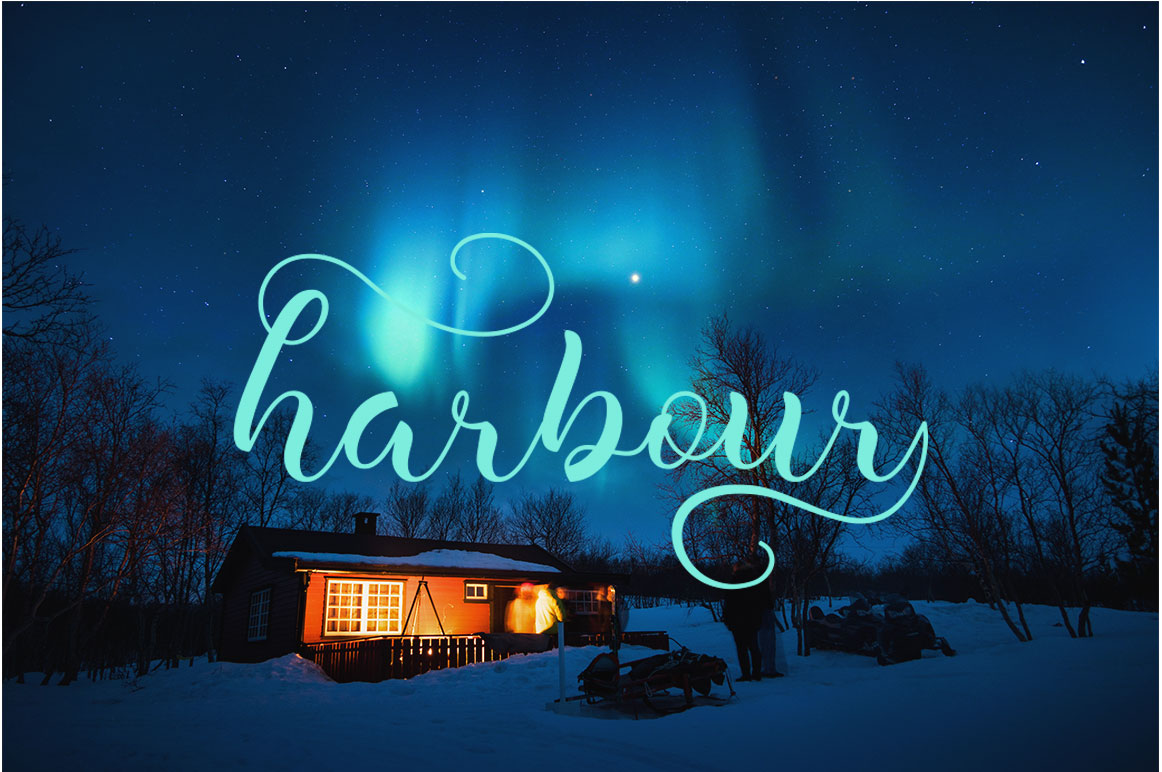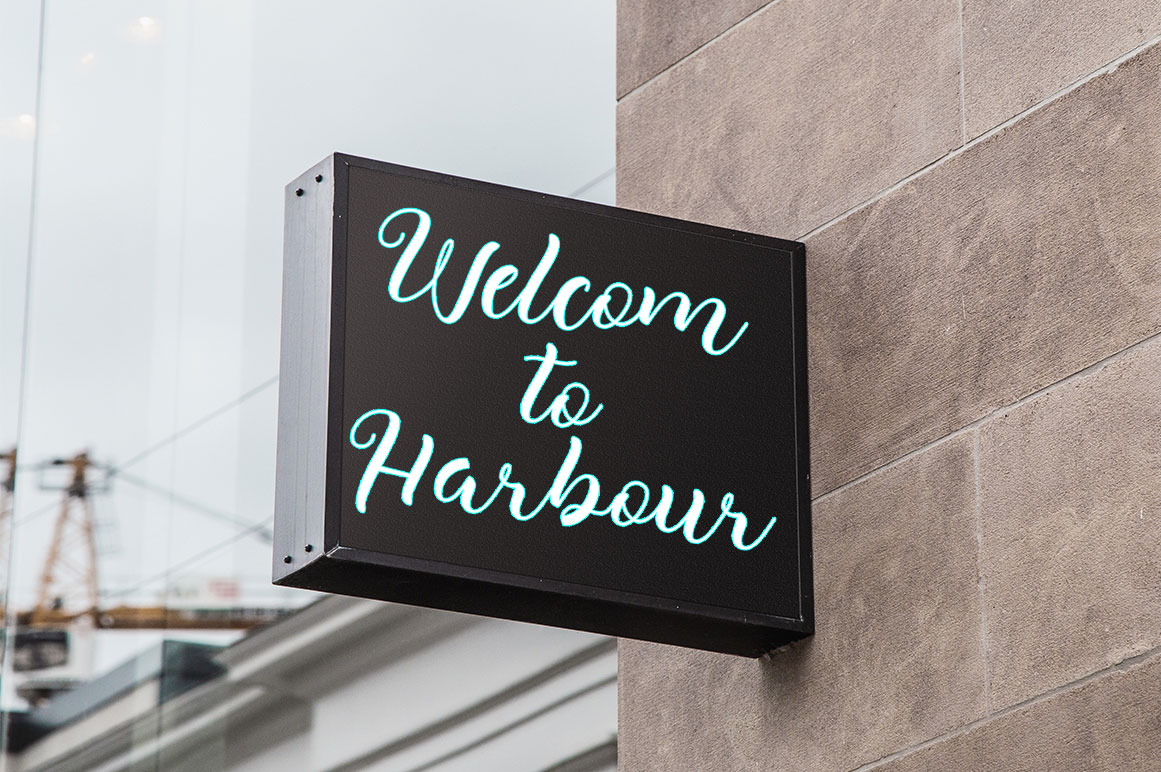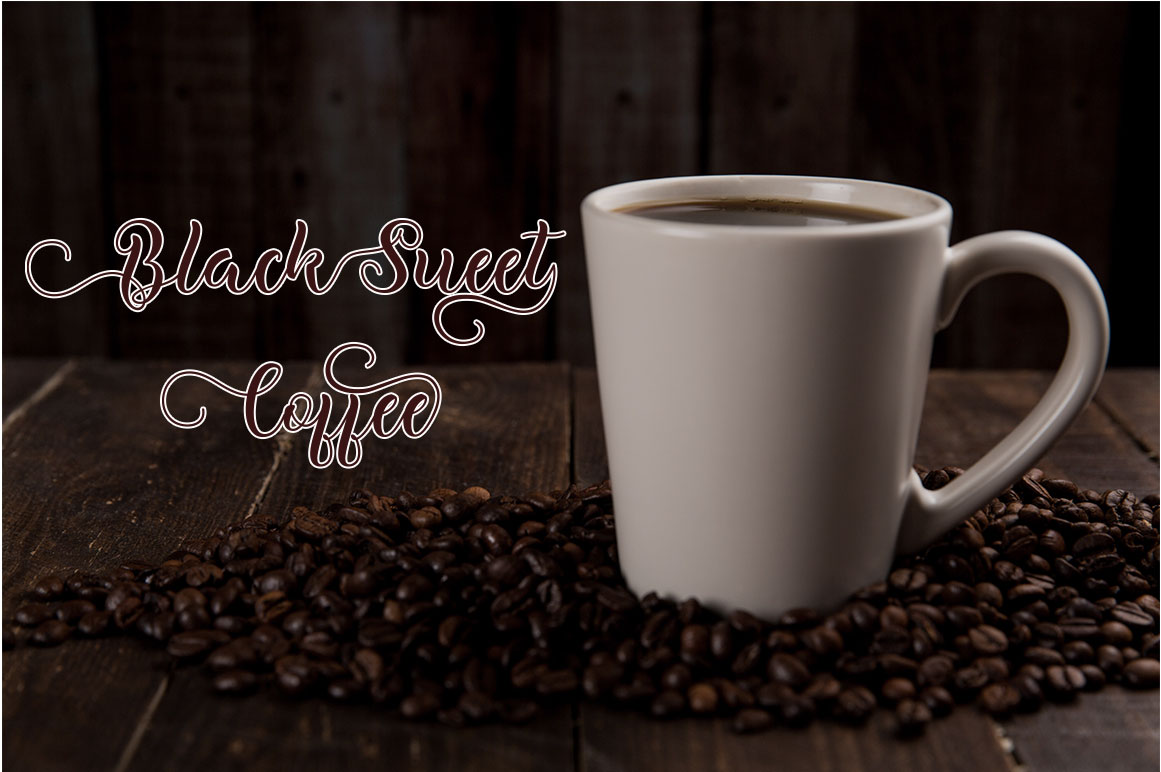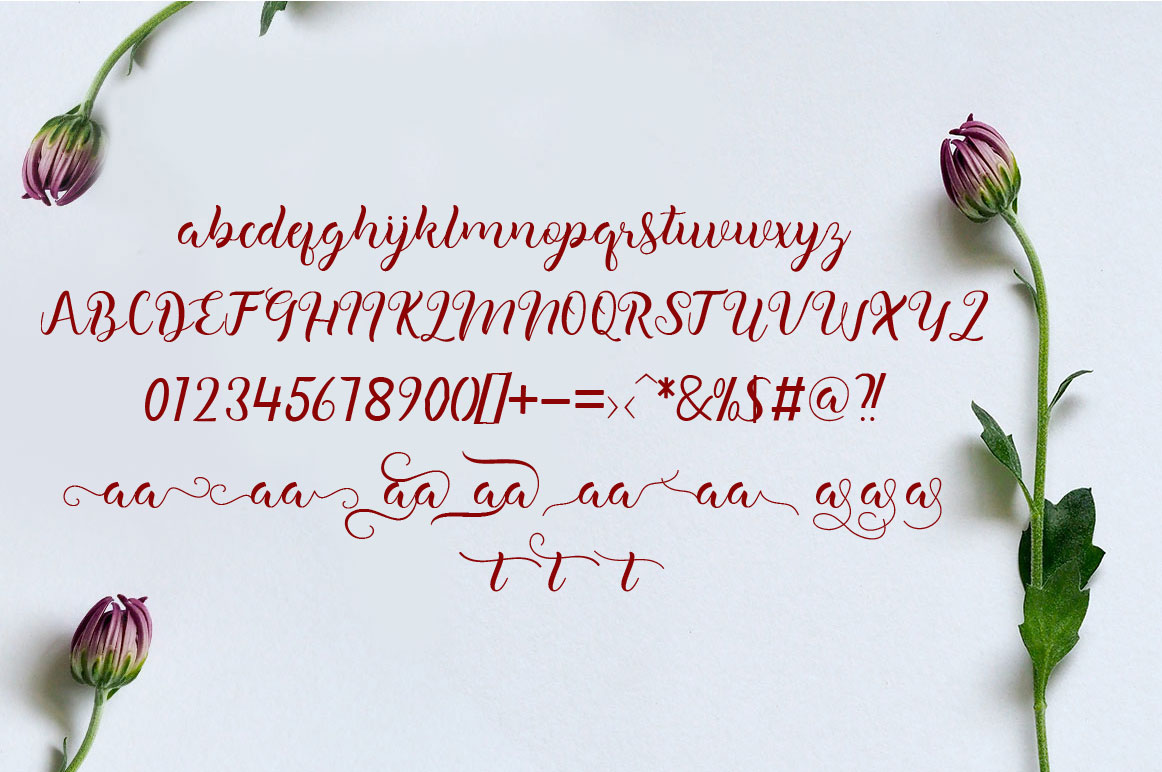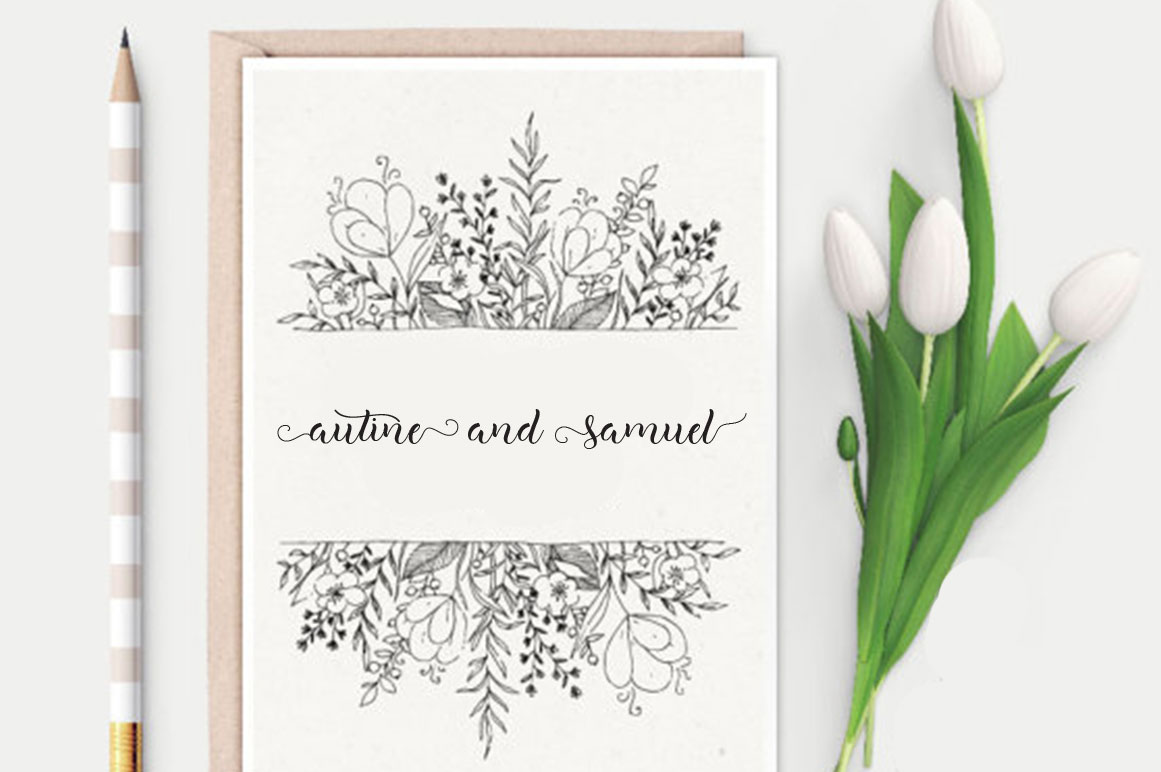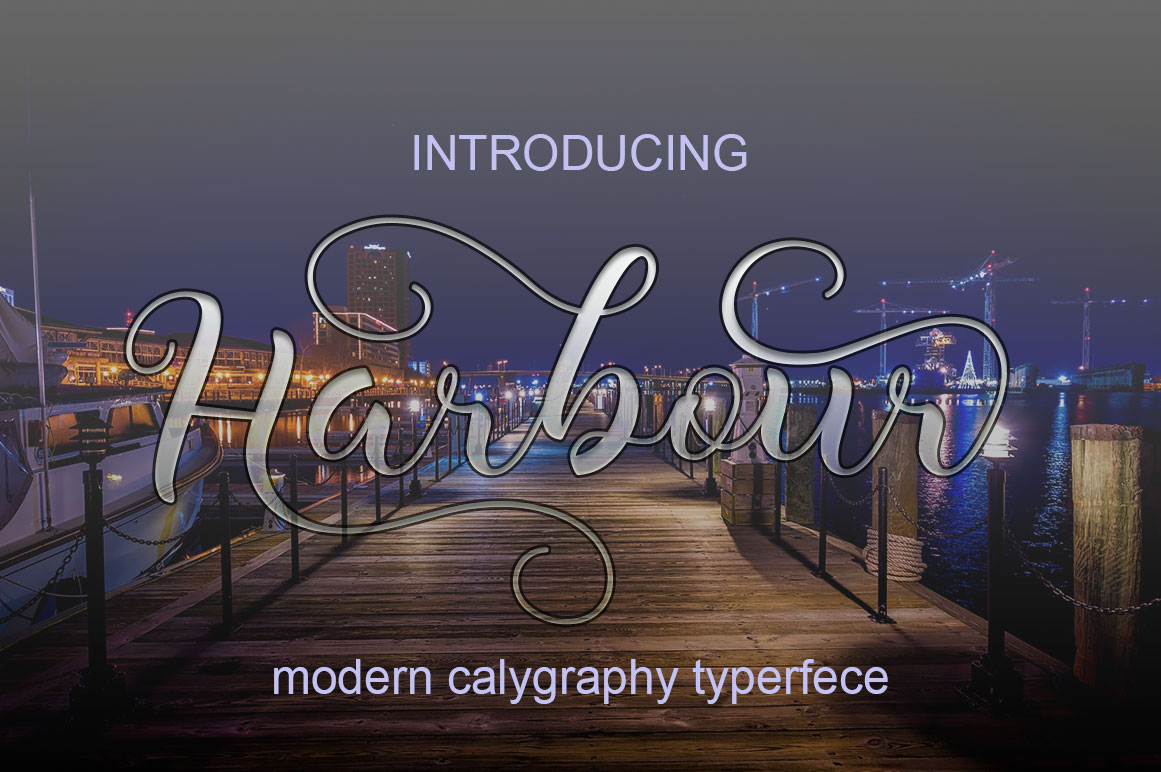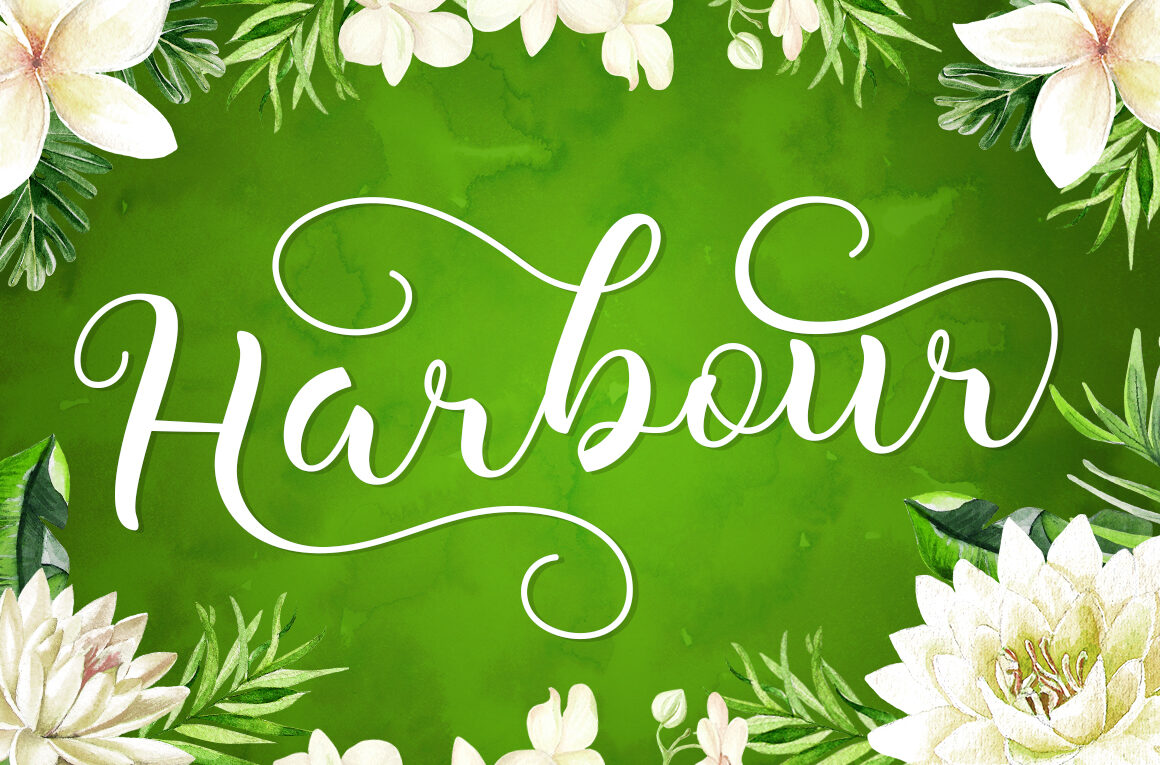
Introducing Harbour Font: Elevate Your Design with Elegant Calligraphy
Are you a designer or crafter looking for a font that adds a touch of sophistication and natural elegance to your creative projects? Look no further than Harbour Font, a stunning calligraphy script that brings a refined yet organic feel to your designs. In this article, we’ll dive into the world of Harbour Font, exploring its features, benefits, and uses in both digital and print projects.
What is Harbour Font?
Harbour Font is a modern calligraphy script that embodies the perfect blend of natural and refined elements. This beautiful font is designed to add a touch of elegance and sophistication to your designs, making it ideal for creative projects that require a unique and eye-catching look. With its flowing lines and organic feel, Harbour Font is sure to capture the attention of your audience and leave a lasting impression.
Key Features of Harbour Font
- Modern Calligraphy Script: Harbour Font boasts a modern calligraphy script that is both elegant and refined, making it perfect for a wide range of design applications.
- Natural yet Refined Look: This font combines the organic feel of natural writing with the sophistication of refined typography, creating a unique and captivating visual identity.
- Digital and Print Friendly: Harbour Font works seamlessly in both digital and print projects, ensuring that your designs look stunning across various mediums.
- Highly Versatile: Whether you’re designing a logo, branding materials, or creative crafts, Harbour Font adapts effortlessly to different design requirements.
Benefits of Using Harbour Font
So, why choose Harbour Font for your design projects? Here are just a few benefits that make this font an excellent addition to your typography arsenal:
- Unique Visual Identity: Harbour Font helps you stand out from the crowd with its distinctive and eye-catching design, ensuring that your projects grab attention and leave a lasting impression.
- Elegance and Sophistication: This font adds a touch of refinement and elegance to your designs, making it perfect for high-end branding, luxury products, and creative crafts.
- Easy to Read: Despite its elegant and cursive nature, Harbour Font remains highly legible, ensuring that your message is conveyed clearly and effectively.
Using Harbour Font in Digital Projects
In today’s digital landscape, a font’s performance across various screens and devices is crucial. Harbour Font excels in digital projects, including:
- Web Design: Enhance your website’s typography with Harbour Font, creating a stunning first impression that engages visitors and encourages exploration.
- Social Media Graphics: Elevate your social media presence with eye-catching graphics featuring Harbour Font, perfect for creating engaging posts, stories, and ads.
- Digital Marketing Materials: Use Harbour Font to create professional-looking digital brochures, flyers, and email newsletters that capture attention and drive results.
Using Harbour Font in Print Projects
Harbour Font is equally impressive in print projects, including:
- Stationery and Invitations: Add a touch of elegance to your stationery, invitations, and greeting cards with Harbour Font, perfect for special occasions and formal events.
- Brochures and Flyers: Create stunning print materials with Harbour Font, ideal for promoting products, services, or events.
- Packaging Design: Elevate your product packaging with Harbour Font, adding a touch of sophistication and refinement to your brand’s visual identity.
| Font Name | Harbour Font |
| Author | saidi studio |
Harbour Font is a beautiful calligraphy script that brings a natural yet refined look to your design projects. With its modern elegance, versatility, and high legibility, this font is perfect for designers and crafters seeking to add a touch of sophistication to their creations. Whether you’re working on digital or print projects, Harbour Font is sure to elevate your designs and leave a lasting impression on your audience.
So why wait? Discover the beauty of Harbour Font and take your designs to the next level with this stunning calligraphy script.